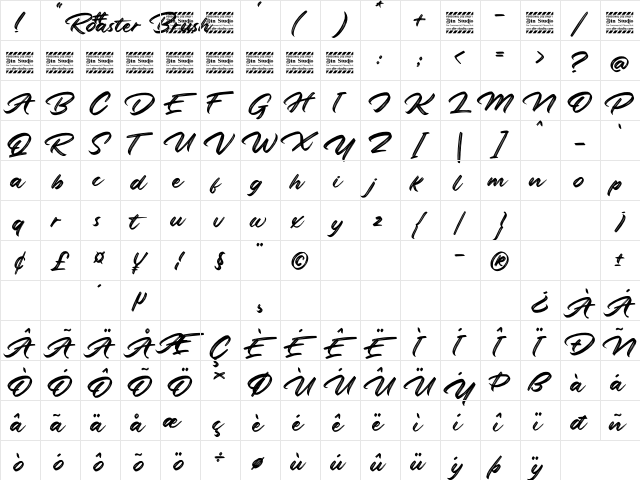
Roaster Brush Personal Use Regular
Design Context for Roaster Brush Personal Use Typeface
Roaster Brush Personal Use brings a calligraphic fluidity to the page — its connecting strokes and expressive curves give it an unmistakably human quality.
Font Pairing: Combine Roaster Brush Personal Use with a simple geometric sans for maximum contrast — the tension between flowing curves and clean structure is a classic typographic pairing.
Pro Tip: Use Roaster Brush Personal Use for short runs of text — names, titles, or taglines. Extended body copy in script faces tires the eye quickly.